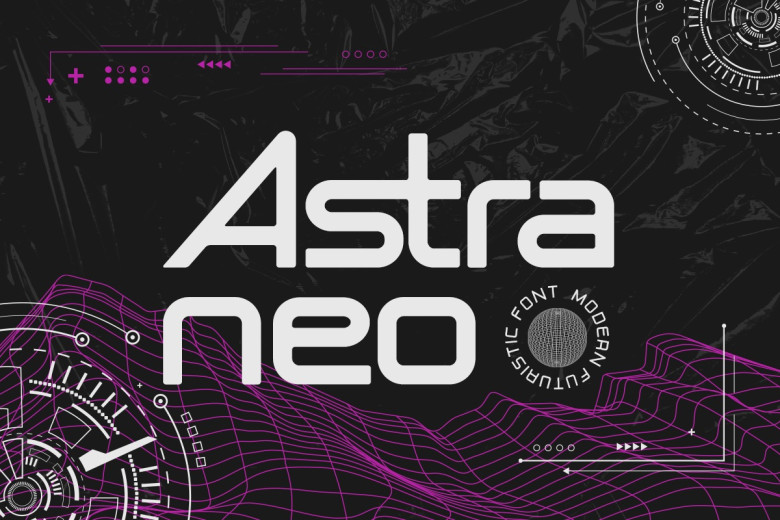
Astraneo Font
Astraneo Font, a recently added futuristic font that can be used to transform your upcoming projects into more futuristic and stylish ones. Obviously, suitable for those who are thirsty for novelties, “Astraneo” offers a distinct appearance and modern feeling to any design.
“Astraneo” has some thin lines, line ends, and two-line strokes with strong futuristic looks that are rarely seen in ordinary fonts. It consists of basic and shifted forms of the Latin script and numerals, as well as special characters, symbols and Unicode range, which makes it universal in terms of its application for different projects.
It’s a perfect font for any technological project, branding projects, logos, posters, web design, and much more “Astraneos” the take your work to a more modern and futuristic look. It is ideal for projects with themes such as innovative and contemporary because of its futuristic design.
When it comes to the quest of a font that represents future of design, Astraneo is the font that designers running to.
Astraneo Display Font